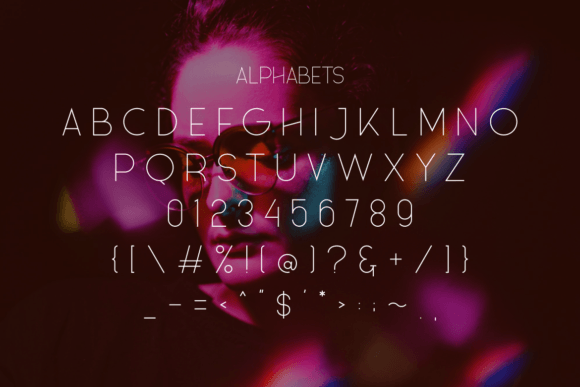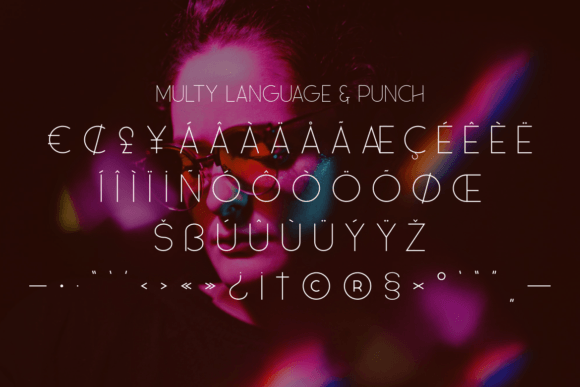
Introduction to Ghetyon Font
Ghetyon is a modern and stylish sans serif font.
Key Features of Ghetyon Font
Why Choose Ghetyon Font?
Ghetyon Font offers exceptional quality and versatility, making it a valuable addition to your design toolkit. Whether you’re creating for personal projects or commercial use, Ghetyon Font delivers professional results.